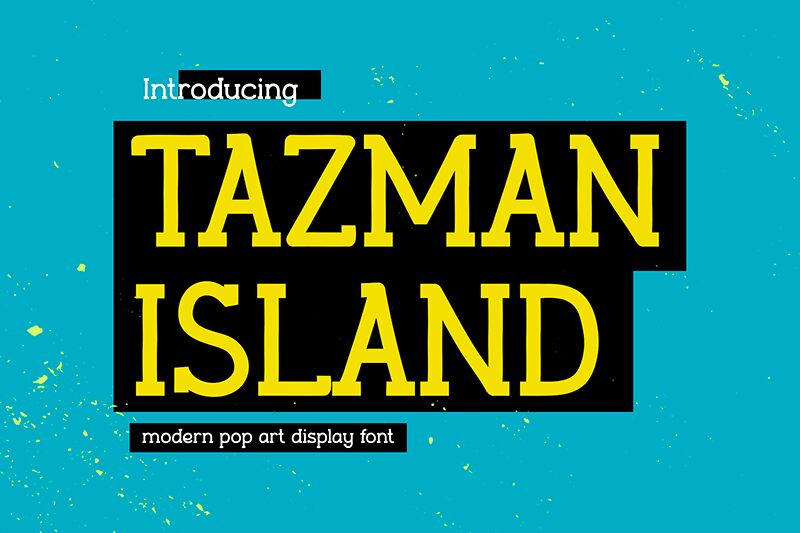
Tazman Island font by Idebareng is a free retro display typeface with a sun-faded, seaside charm. Its rounded, slightly bouncy letterforms feel like hand-painted signage from an old boardwalk—smooth curves, tight rhythm, and a friendly wobble that keeps the eye moving. The subtle unevenness gives it a warm, human touch, while the bold strokes stay clean enough to read quickly at a glance.
Using Tazman Island, you get a natural fit for beach-themed branding, vintage posters, tiki bar menus, surf shop logos, nostalgic packaging, and playful social media graphics. This free font shines when you give it room in headlines and wordmarks; pair it with a clean geometric sans in small text to keep layouts grounded and easy to scan.